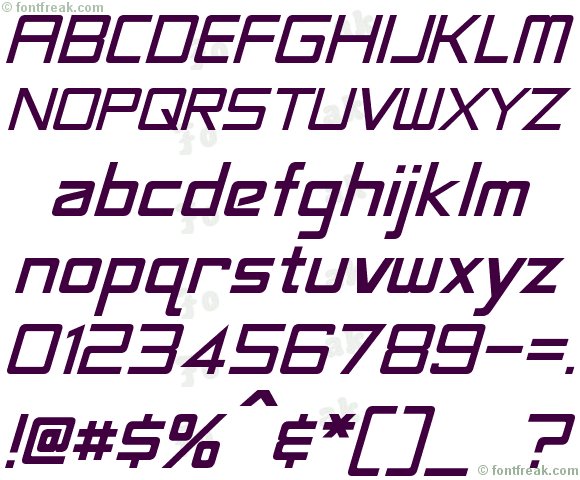
LaBouf Oblique
About LaBouf Oblique
LaBouf Oblique is a striking sans-serif font designed by Neale Davidson in 2011, characterized by its modern, oblique styling that adds a sense of dynamism to any text. The font features a medium stroke weight with a subtle contrast, giving it a bold yet approachable appearance. Its angular forms and slightly slanted structure contribute to an energetic feel, making it ideal for various applications. The spacing is well-balanced, ensuring that the text remains legible while still conveying a sense of motion and flair.
This font is particularly well-suited for a variety of creative projects. Its contemporary design makes it an excellent choice for wedding invitations, where the oblique nature can evoke a sense of elegance and sophistication. Additionally, LaBouf Oblique works wonderfully in movie posters, capturing attention with its unique aesthetic and modern vibe. It also finds its place in restaurant menus, where it can elevate the dining experience by adding a touch of style to the overall presentation. Graphic designers and content creators will appreciate its versatility, as it can be used effectively in branding materials, social media graphics, and promotional flyers.
What sets LaBouf Oblique apart is its perfect blend of modernity and readability. Its distinctive slant and carefully crafted details create a memorable typographic experience, ensuring that any project using this font will leave a lasting impression. Whether you’re designing for print or digital, LaBouf Oblique is a standout choice that brings creativity to the forefront.